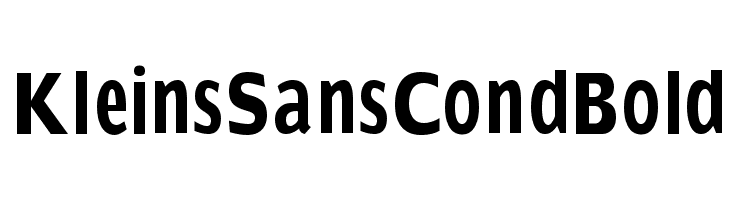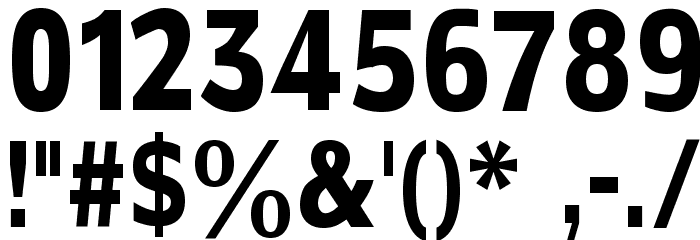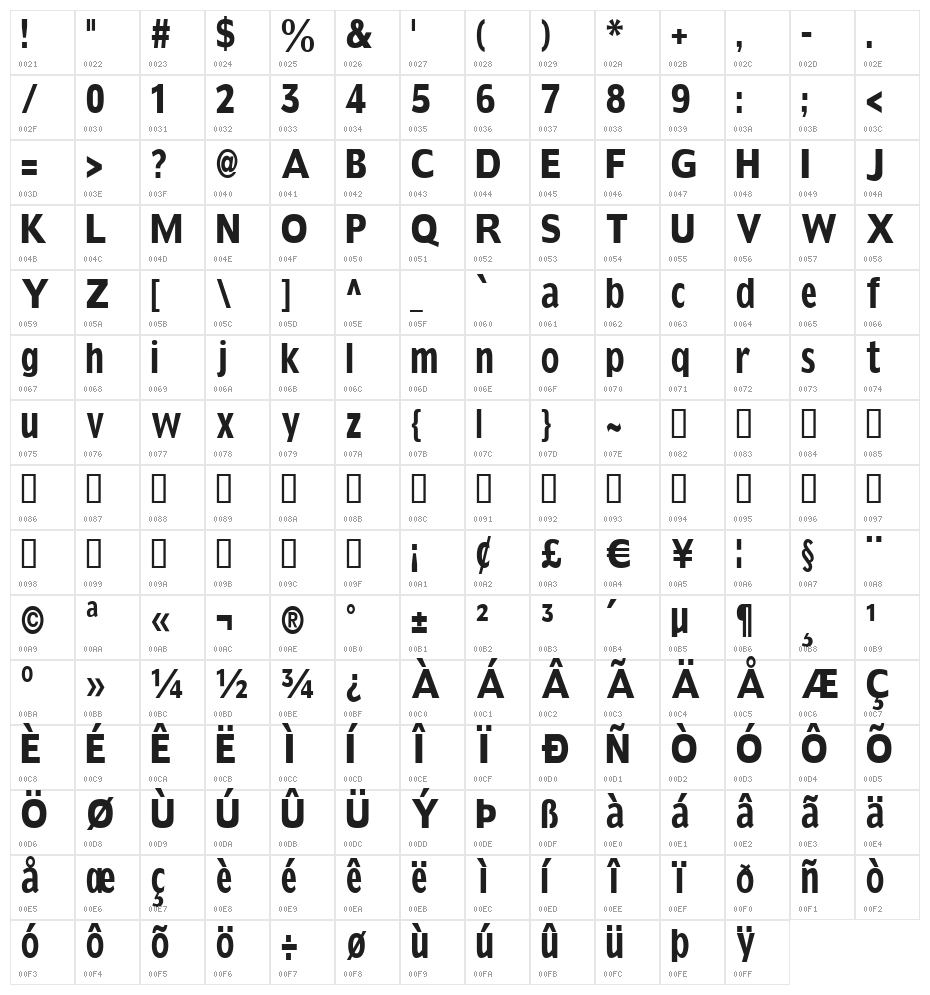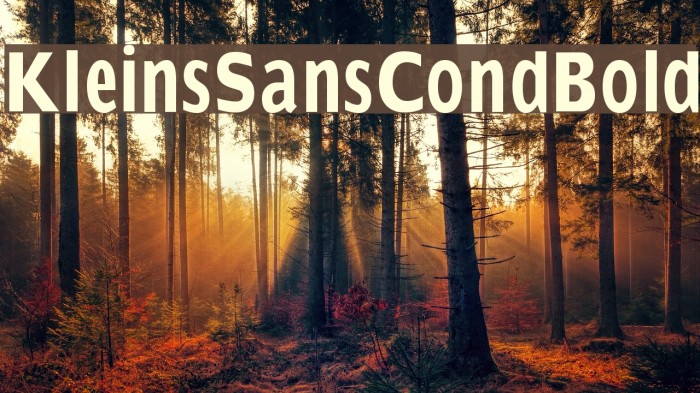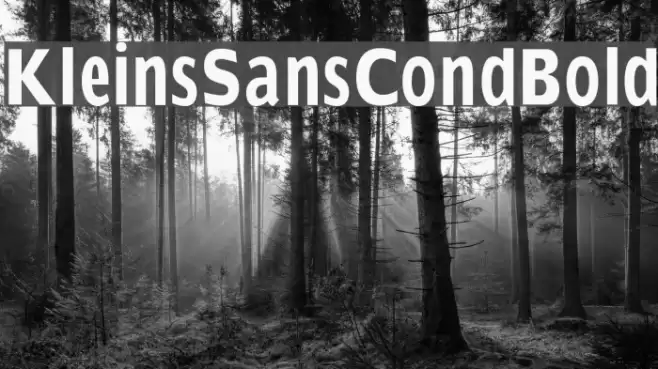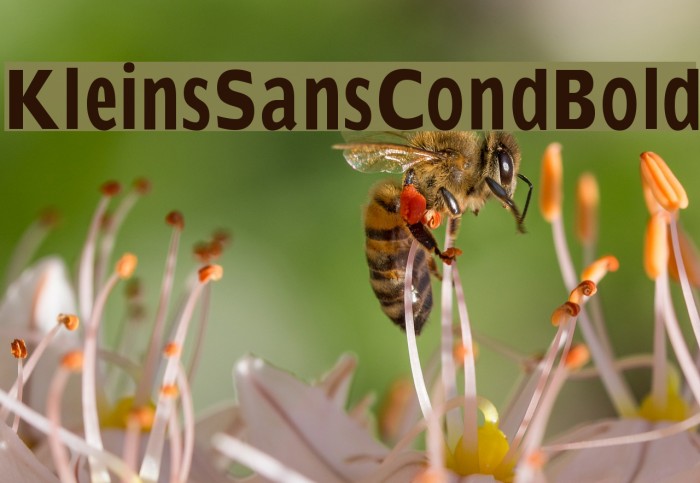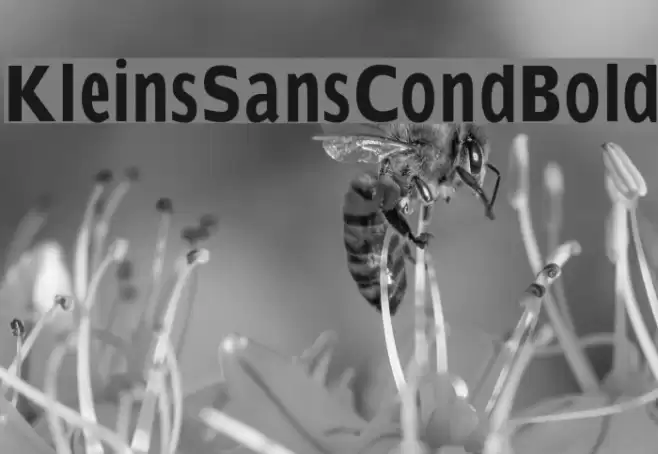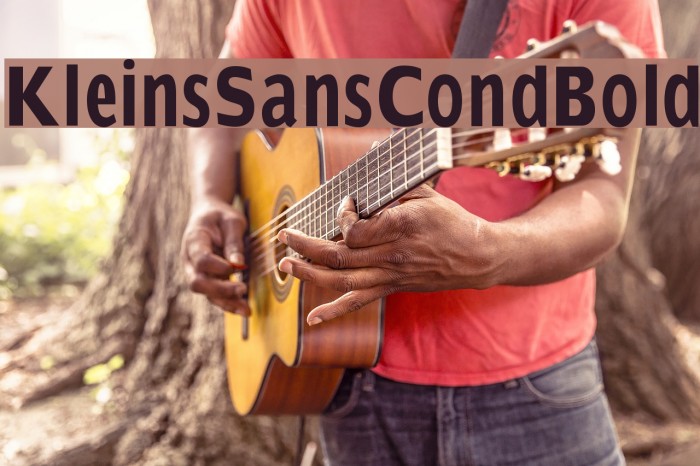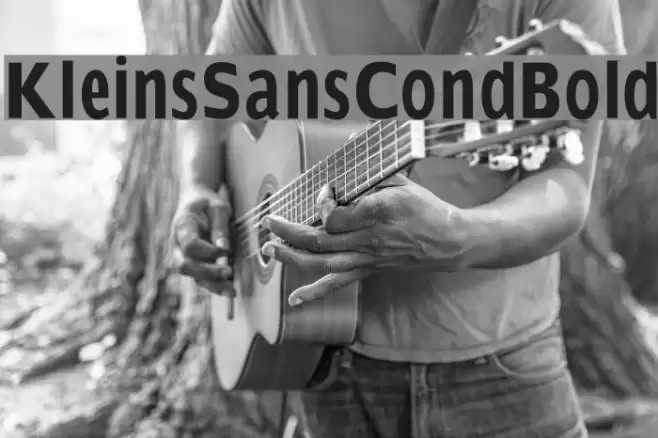
KleinsSansCondBold Font
KleinsSansCondBold Description
This typeface is a bold, sans-serif font characterized by its clean and modern appearance. The letters are uniformly thick, providing a strong and impactful look. The uppercase and lowercase letters are well-proportioned, with a slightly condensed width that enhances readability while maintaining a compact form. The numerals are clear and distinct, matching the boldness of the alphabetic characters. Special characters are designed with the same attention to detail, ensuring consistency across all glyphs. This font's simplicity and strength make it versatile for various design applications.